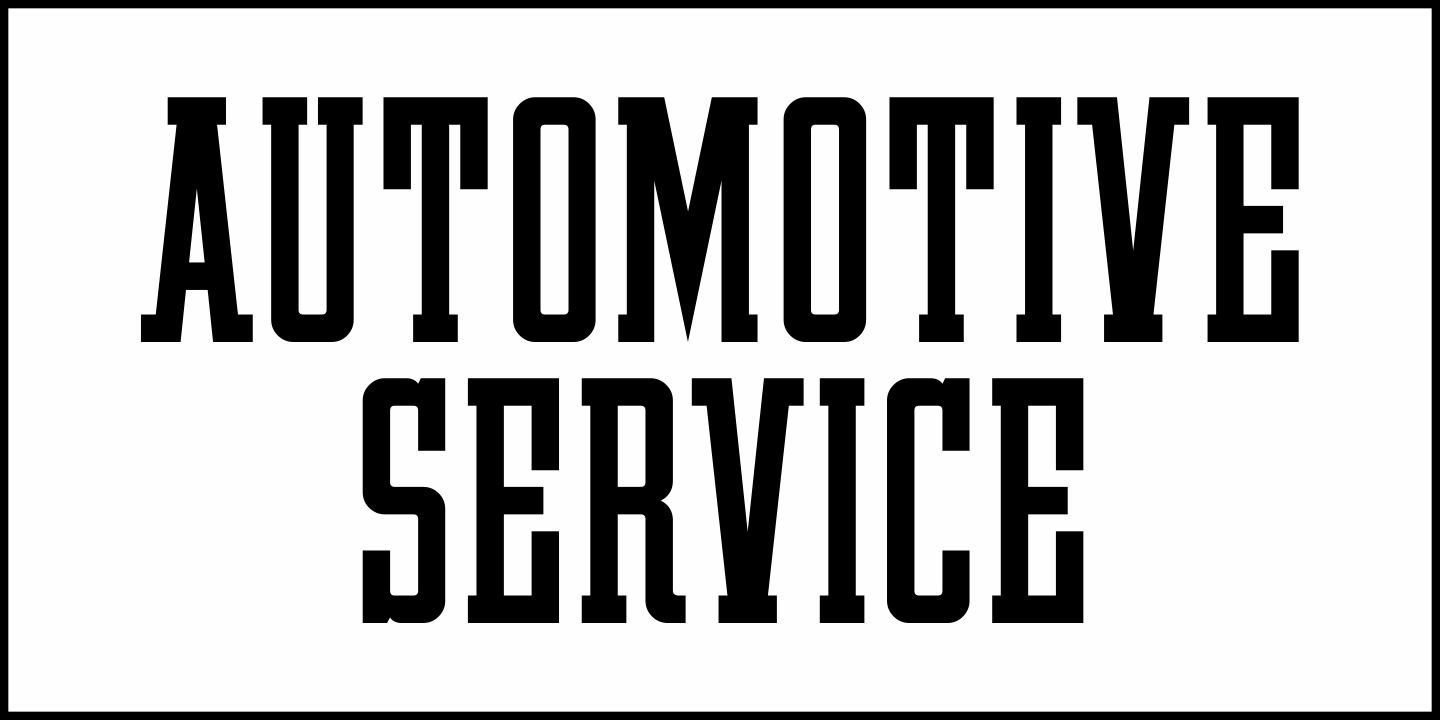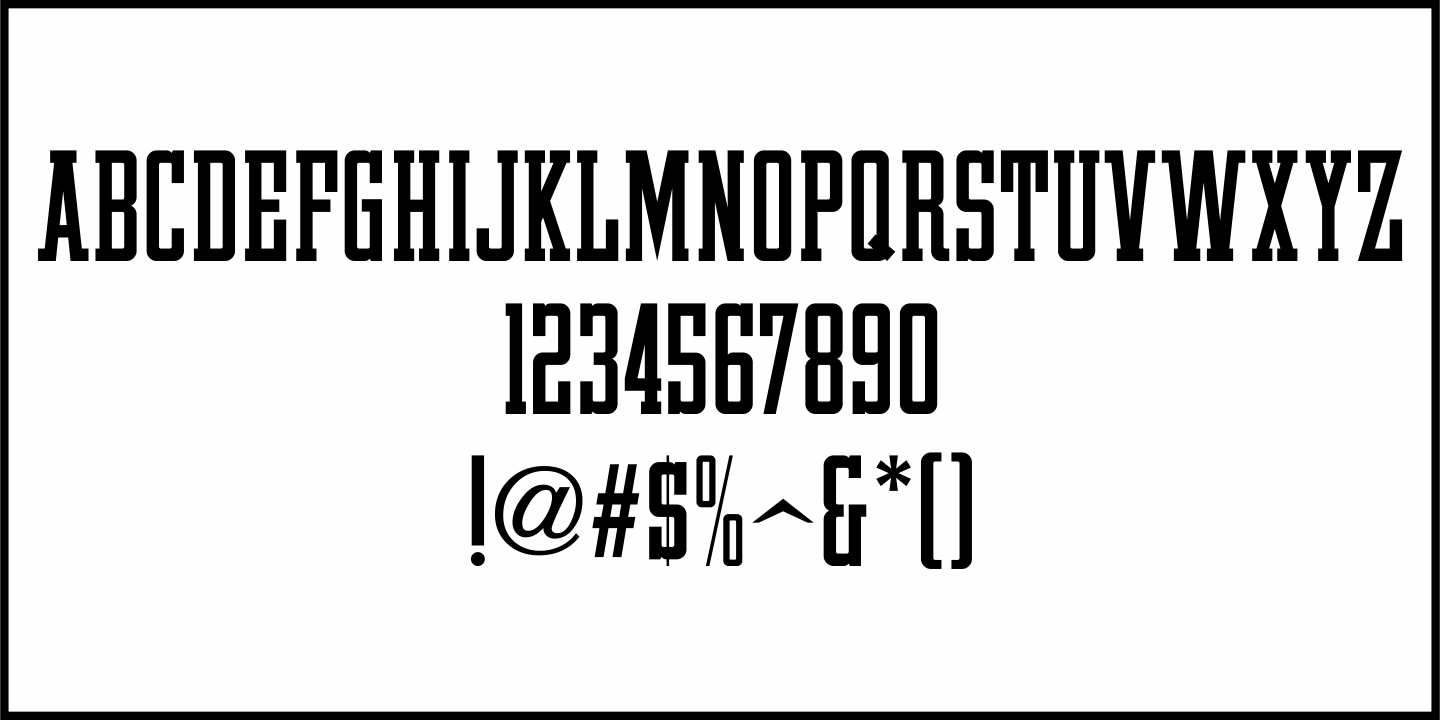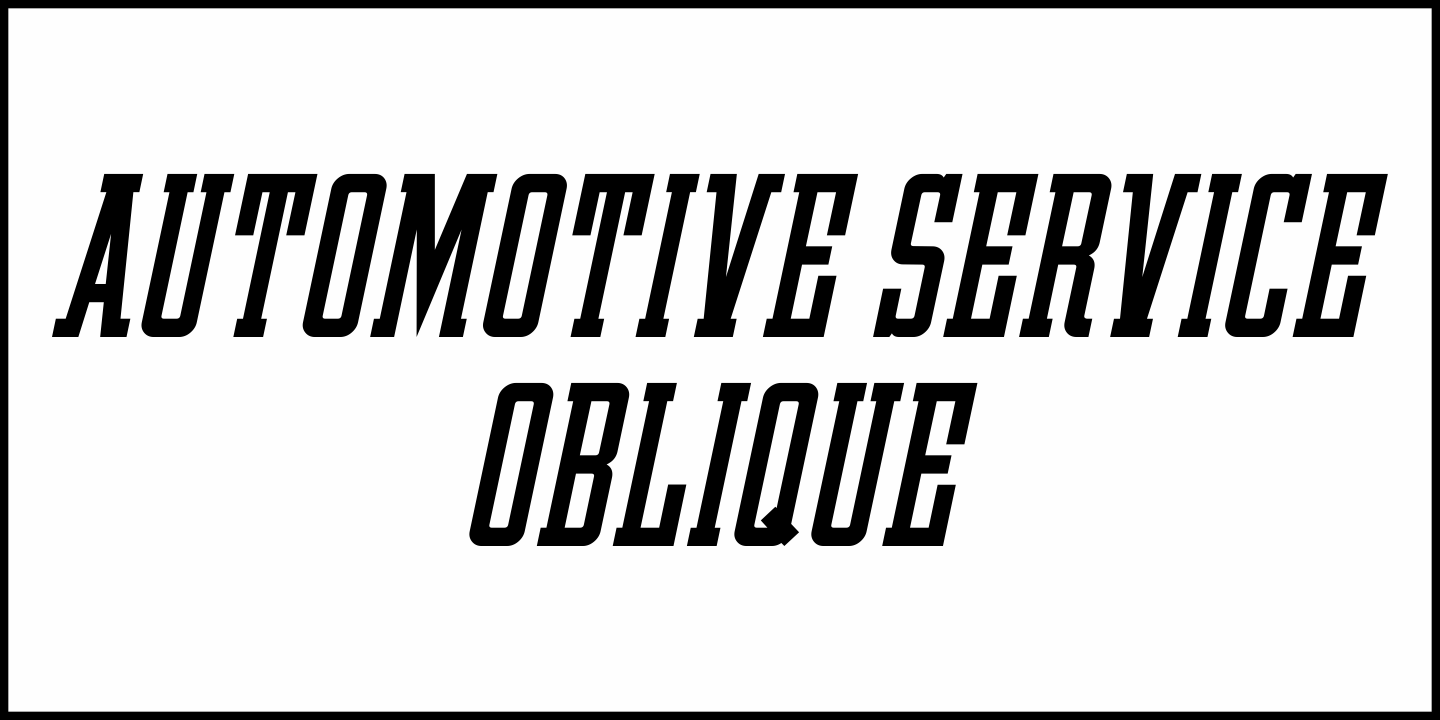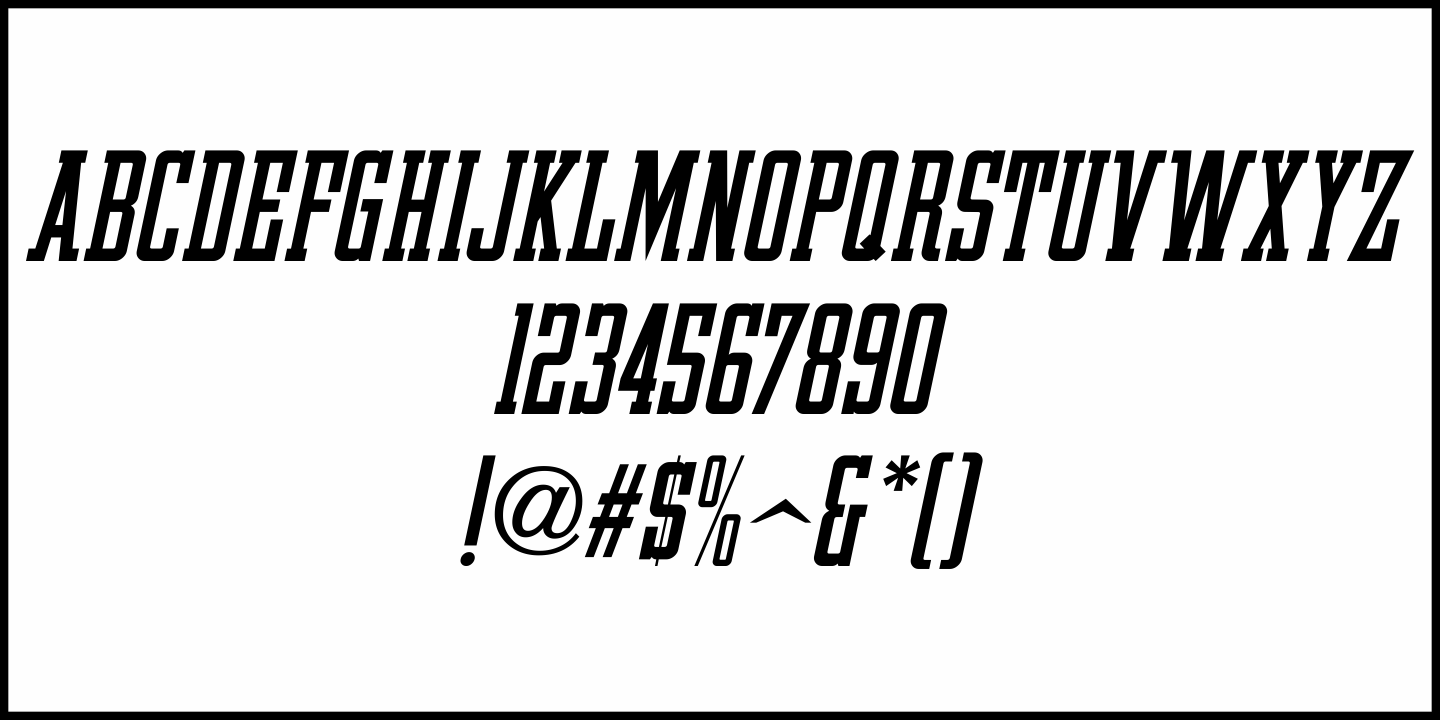
Automotive Service
A 1930s print ad for Miller Tires featured lettering in a condensed slab serif design.
This provided a design model for the digital typeface Automotive Service JNL, which is available in both regular and oblique versions.
Automotive Service JNL Regular by Jeff Levine Fonts